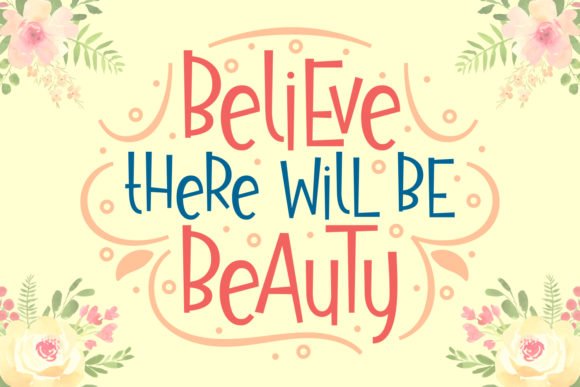
Unlocking Whimsical Designs with Believe There Will Be Beauty Font
Have you ever stared at a blank page, waiting for inspiration to strike? That’s exactly what happened to me last week. I was brainstorming ideas for a new project, and suddenly, a quirky handwritten font popped into my head. I couldn’t get it out of my mind – I had to bring it to life. And that’s exactly what I did.
Enter Believe There Will Be Beauty Font, a delightful, hand-drawn typeface that adds a touch of whimsy to any design project. This charming font is perfect for creatives who want to stand out from the crowd and infuse their work with a sense of personality. Whether you’re designing a logo, brochure, or social media campaign, Believe There Will Be Beauty Font is sure to bring a smile to your audience’s face.
With its unique charm and versatility, Believe There Will Be Beauty Font is a valuable addition to any designer’s toolkit. It’s the perfect way to add a touch of magic to your designs and make them truly unforgettable.
Believe There Will Be Beauty Font Key Features
- Font Family: Believe There Will Be Beauty Font is a modern sans-serif font family designed to convey a sense of optimism and hope.
- Unique Characteristics: The font family features a unique blend of geometric and organic shapes, creating a distinctive and eye-catching visual style. The font also includes a range of ligatures and swashes, adding to its creative and expressive feel.
Believe There Will Be Beauty Font Review
Overall, I think “Believe There Will Be Beauty Font” is a unique and lovely font. ✨ The way the letters curve and flow is very organic and natural, giving it a hand-drawn feel that’s hard to find in digital fonts. The font is also highly customizable, with a wide range of styles and weights to choose from. ✨ This makes it perfect for designers who want to add a touch of whimsy to their designs without sacrificing readability.
One thing that I think could be improved is the font’s legibility at smaller sizes. ⚠️ At certain sizes, the letters can become quite fuzzy and difficult to read, which may be a problem for designers who need to use the font in body text or other small-scale applications. Additionally, the font’s customization options can be overwhelming, which may be confusing for less experienced designers.
In terms of its overall impression, I think “Believe There Will Be Beauty Font” is a great choice for designers who want to add a touch of elegance and sophistication to their designs. ✨ It’s perfect for wedding invitations, branding materials, and other high-end designs where a unique and eye-catching font is essential.
- Unique and natural feel
- Perfect for high-end designs
- Can be difficult to read at smaller sizes
- Customization options can be overwhelming
- Use it for titles and headings to add a touch of elegance to your design.
- Pair it with a simple background to let the font be the focal point.